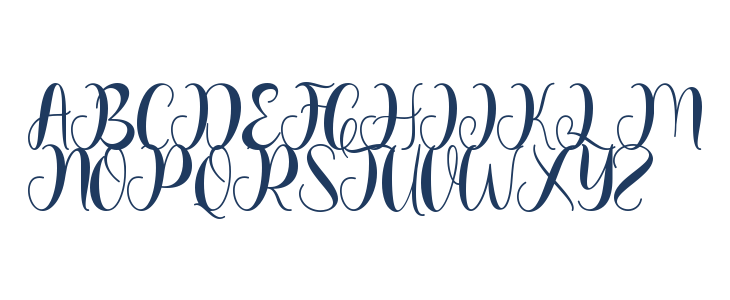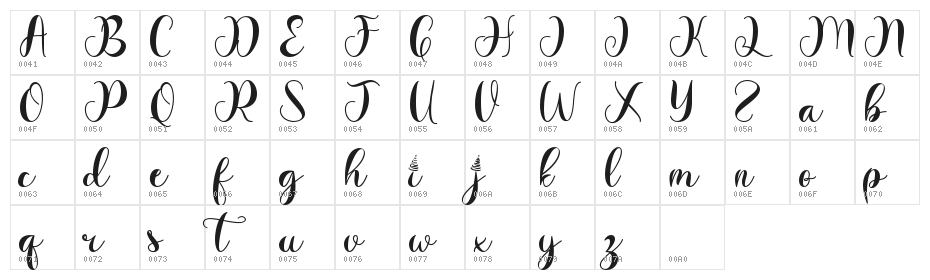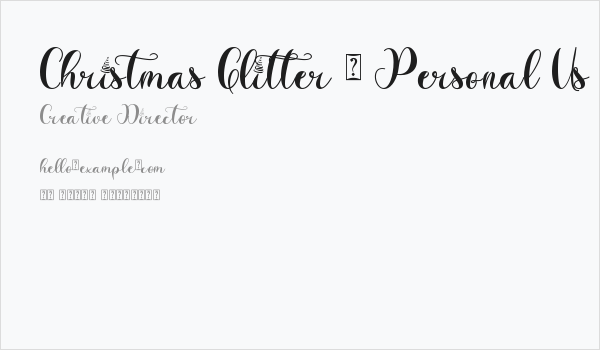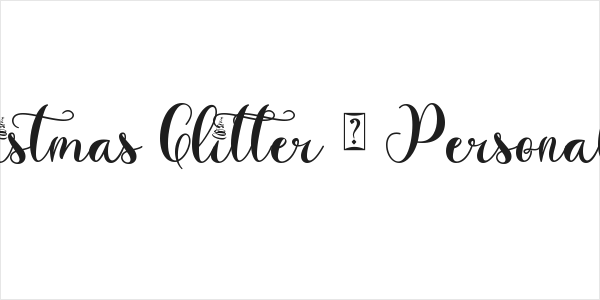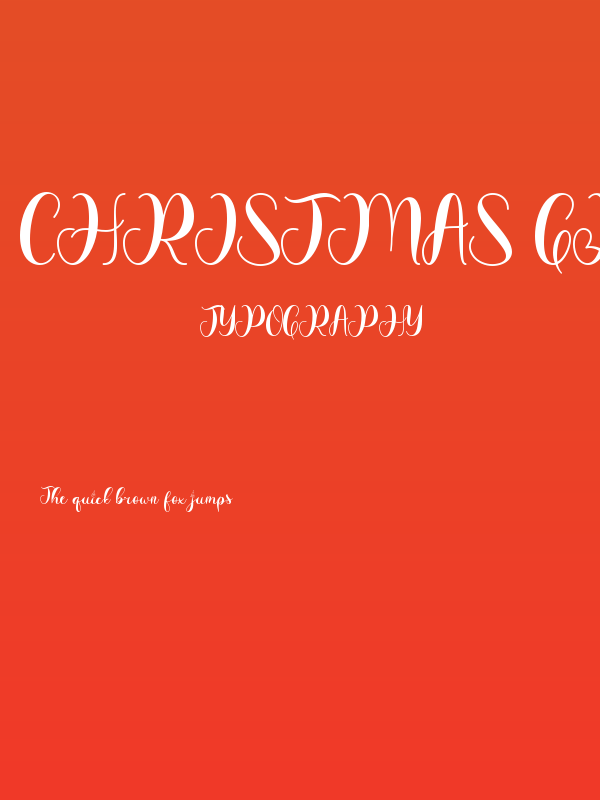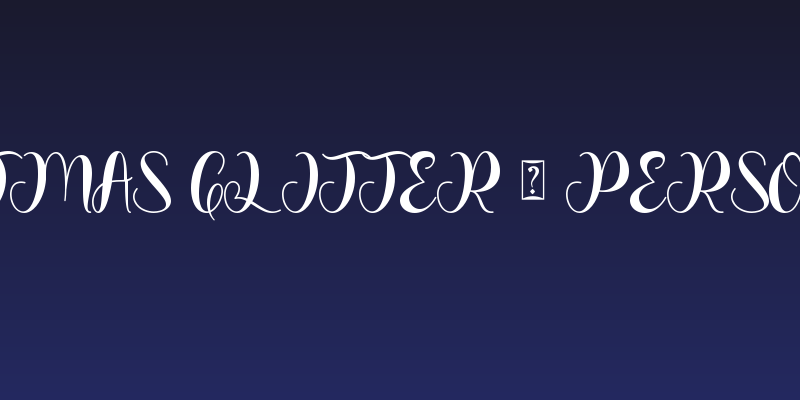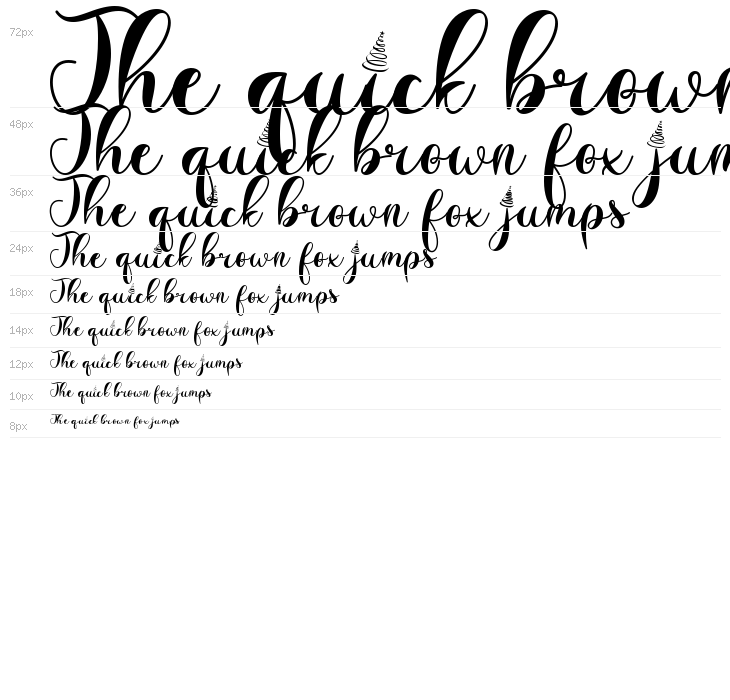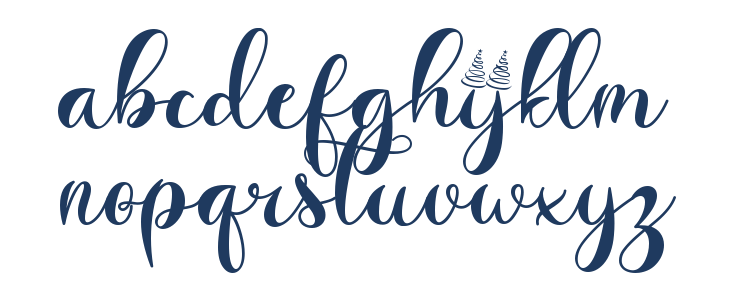
Christmas Glitter - Personal Us Font
Christmas Glitter - Personal Us Description
Elegant script typeface with flowing, connected letterforms and decorative swashes, featuring both uppercase and lowercase alphabets with a festive, whimsical touch. The strokes are moderately thick with high contrast, and some characters include playful embellishments such as a stylized Christmas tree.
| Overall Style | Decorative, Festive, Elegant |
| Use Case | Headlines, Invitations, Greeting cards, Decorative text |
| Proposed Projects | Holiday cards, festive invitations, seasonal branding, decorative signage, event posters. |